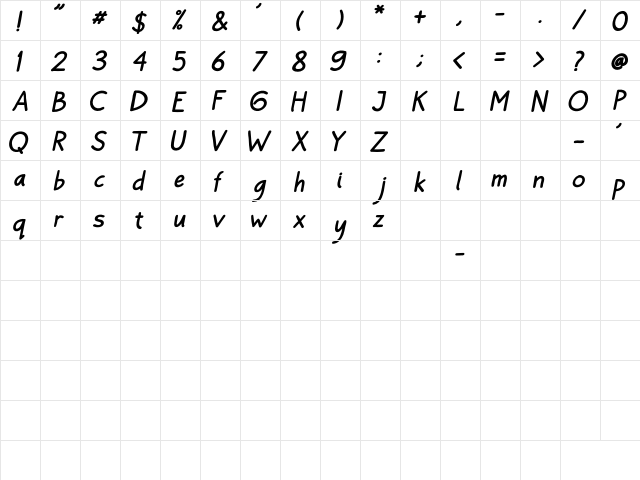
Bayu Prahara 2 Bold Italic
Design Context for Bayu Prahara 2 Typeface
Bayu Prahara 2 is a composed and adaptable typeface that performs quietly and consistently across a wide range of design contexts. The dynamic lean of this cut emphasises speed and emphasis in any layout. The heavy weight commands attention and anchors typographic hierarchies.